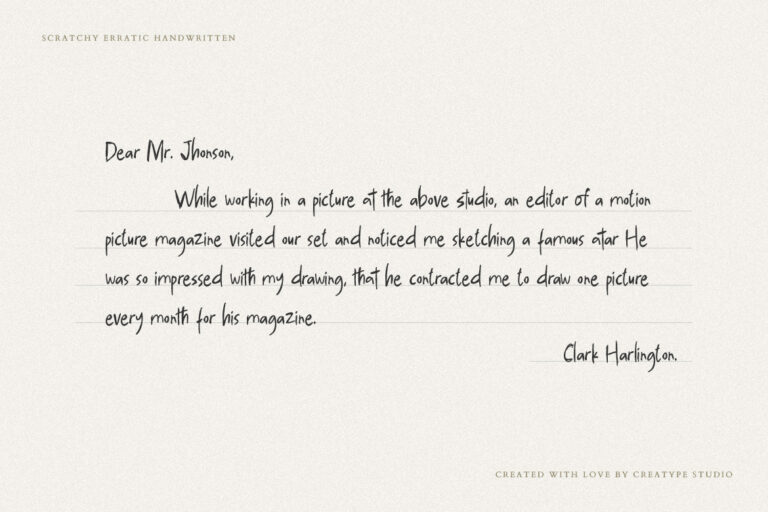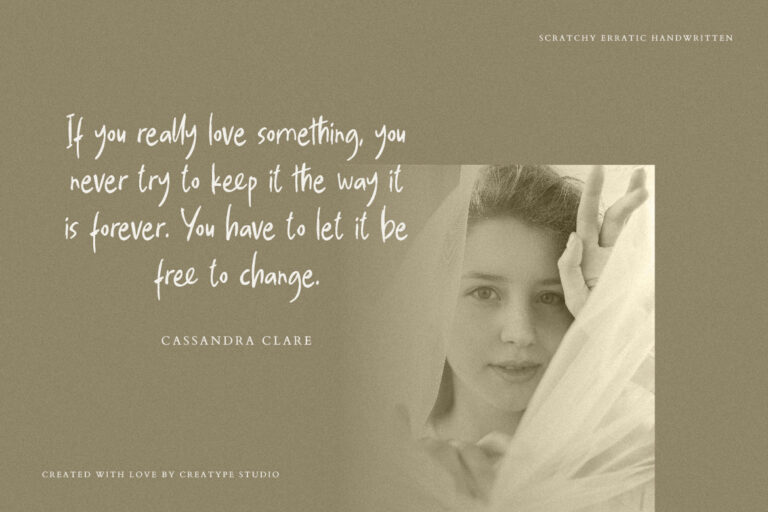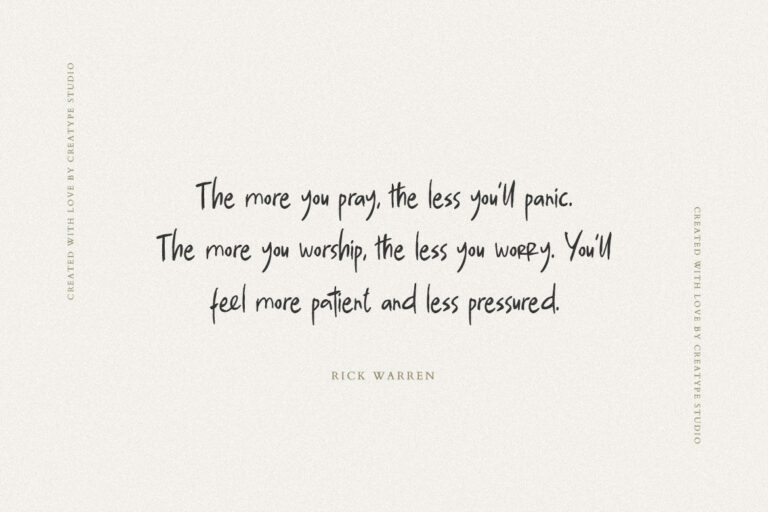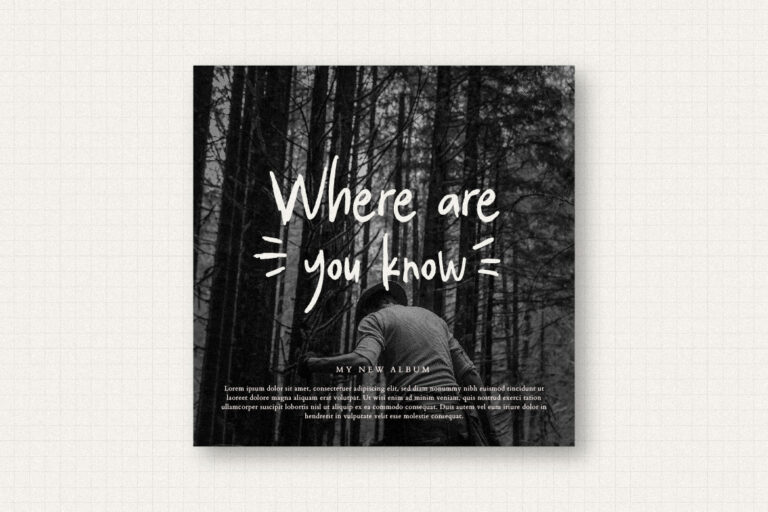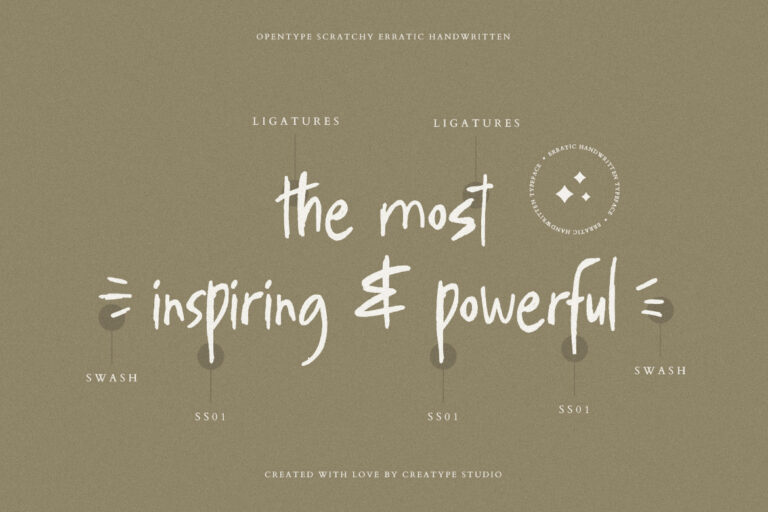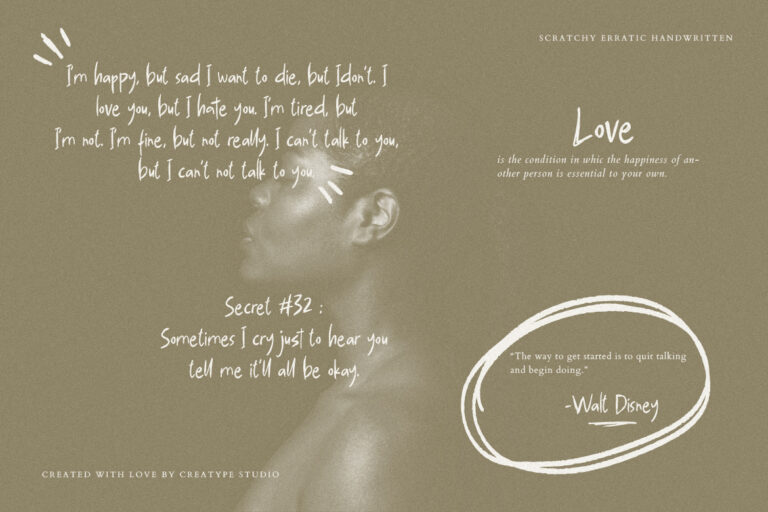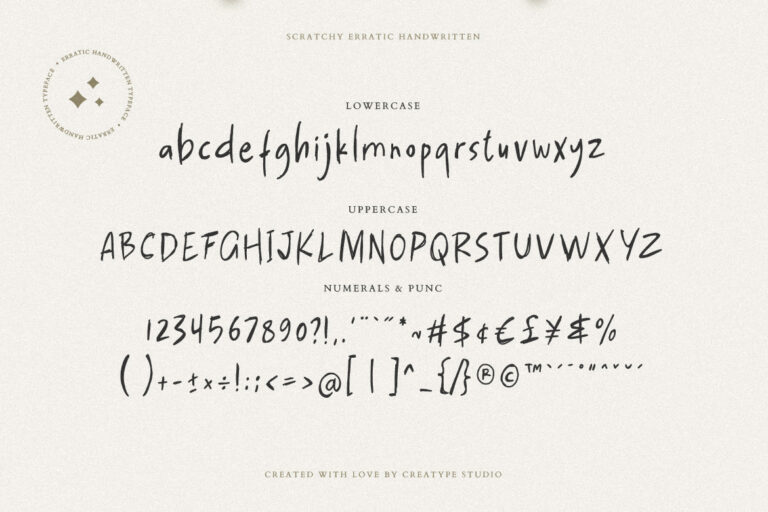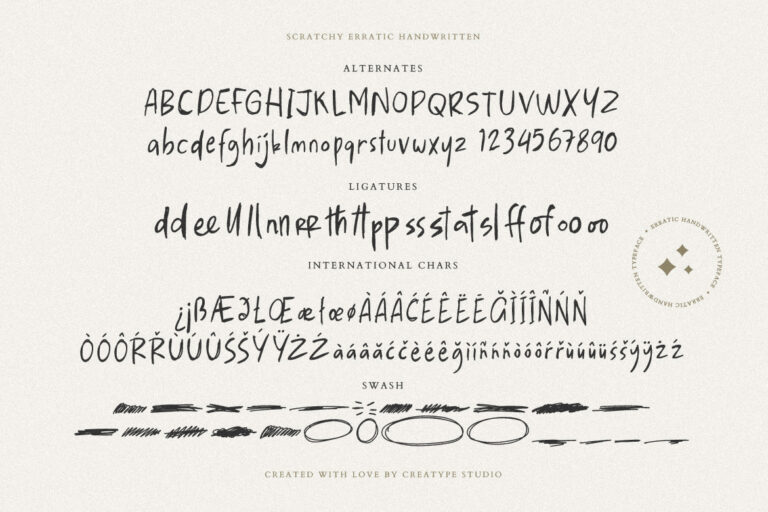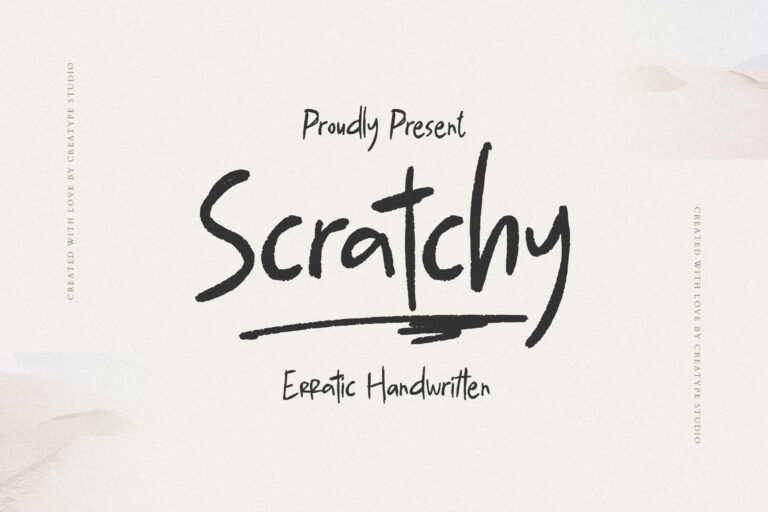
Scratchy is an erratic handwritten typeface. With messy and erratic shapes, this font looks so realistic and natural. There are many alternatives, ligatures and swash in it to make the most of your designs.
• Ligature & Alternate
Scratchy Erratic Handwritten